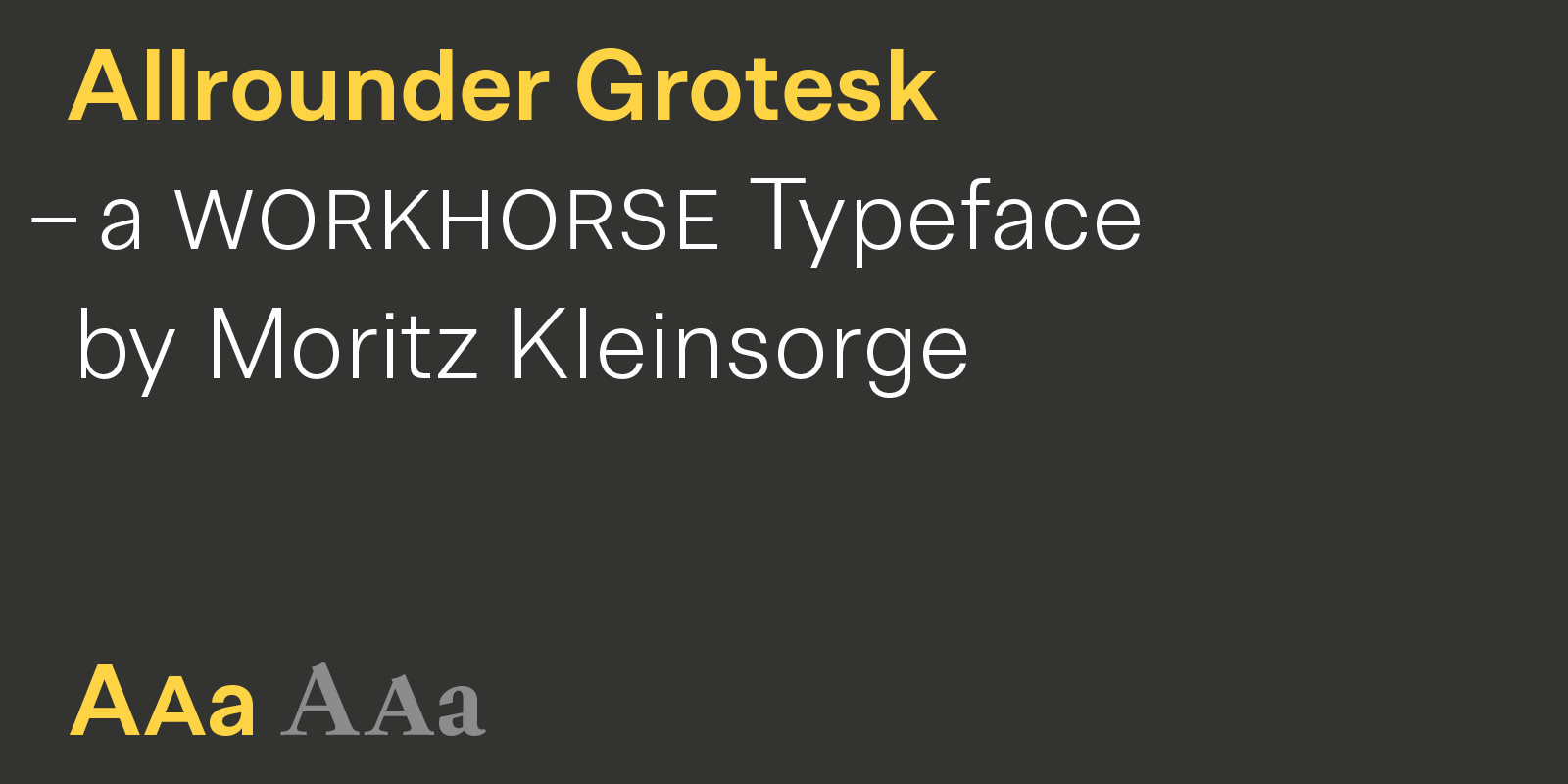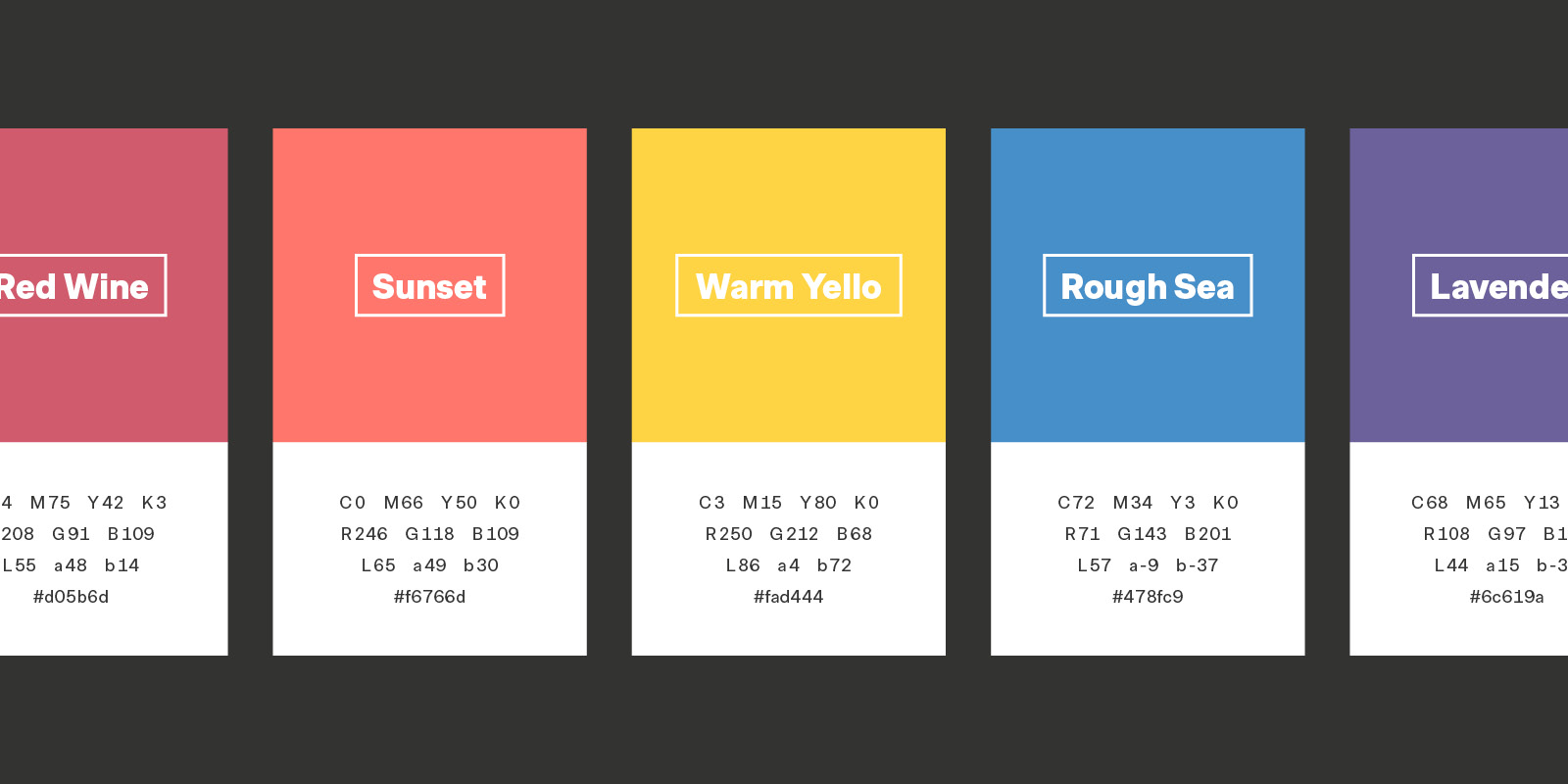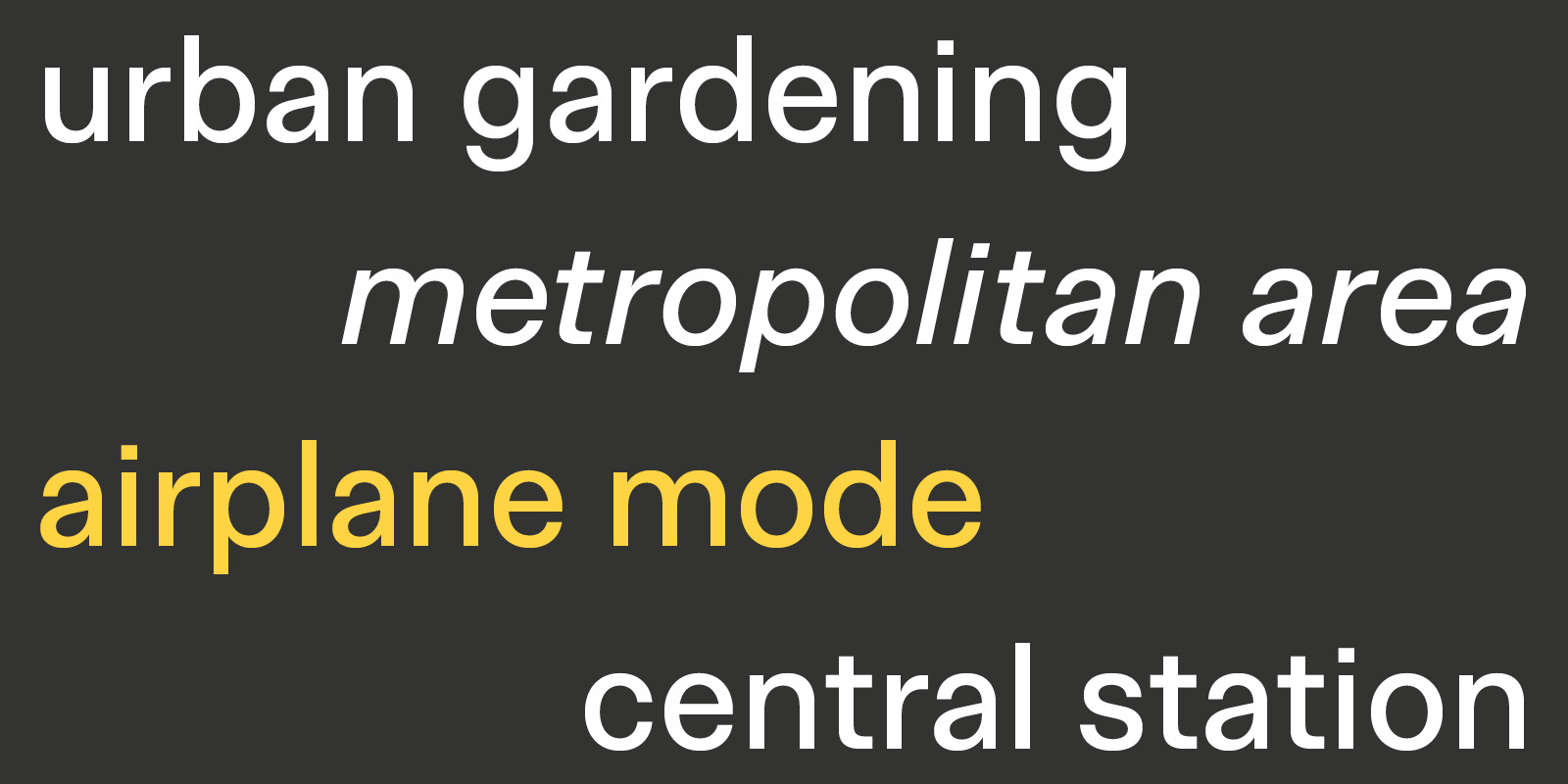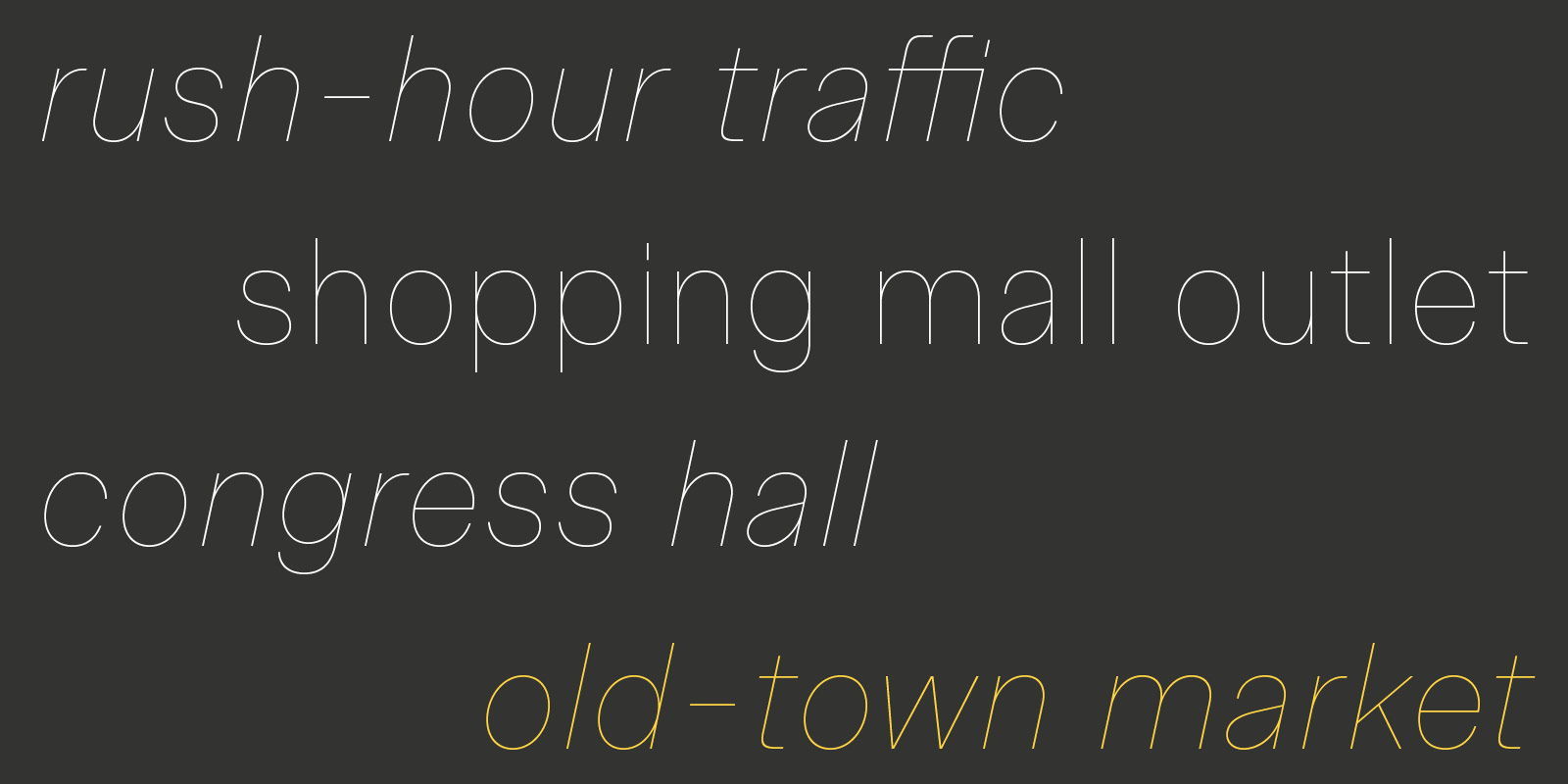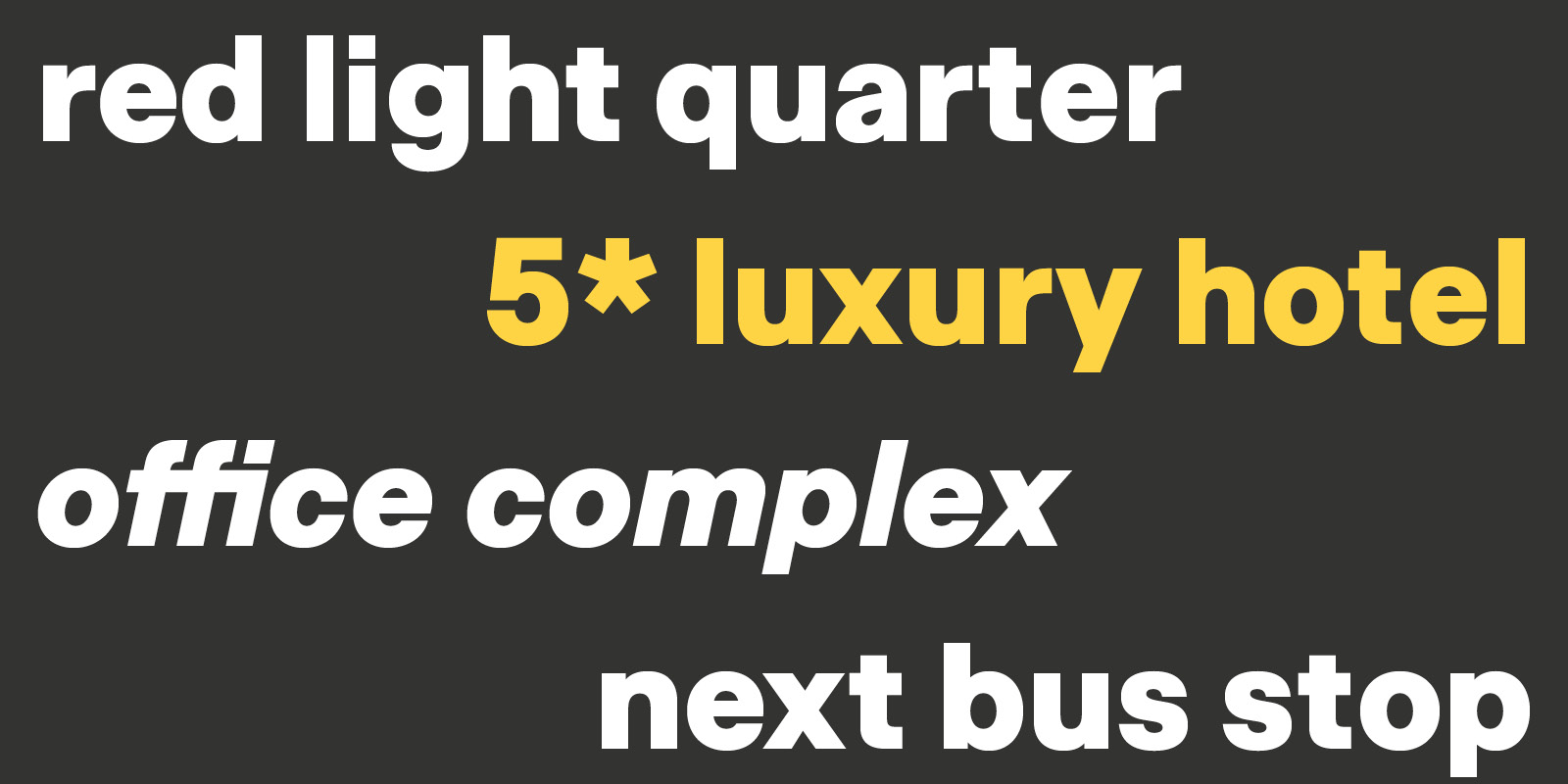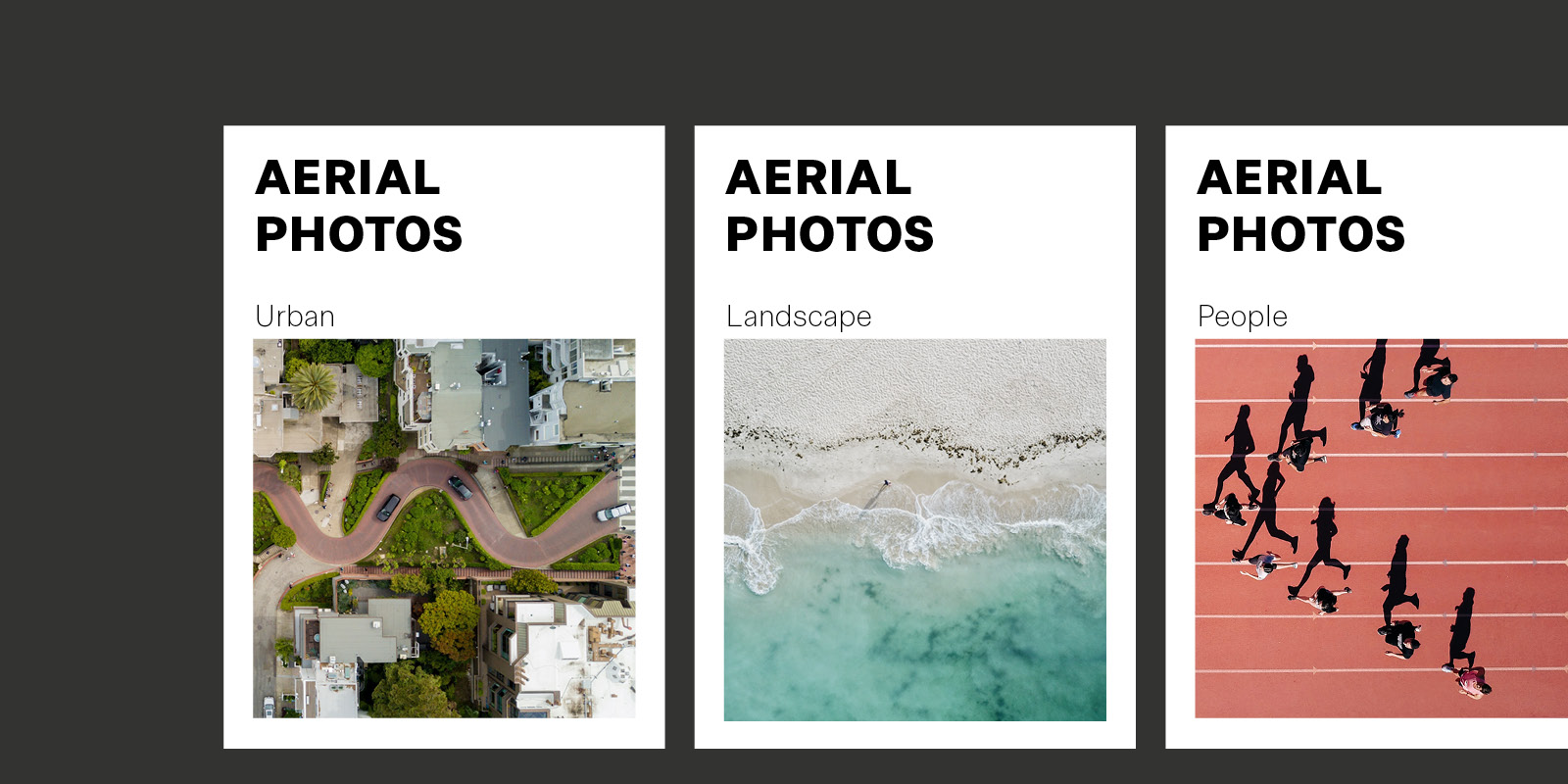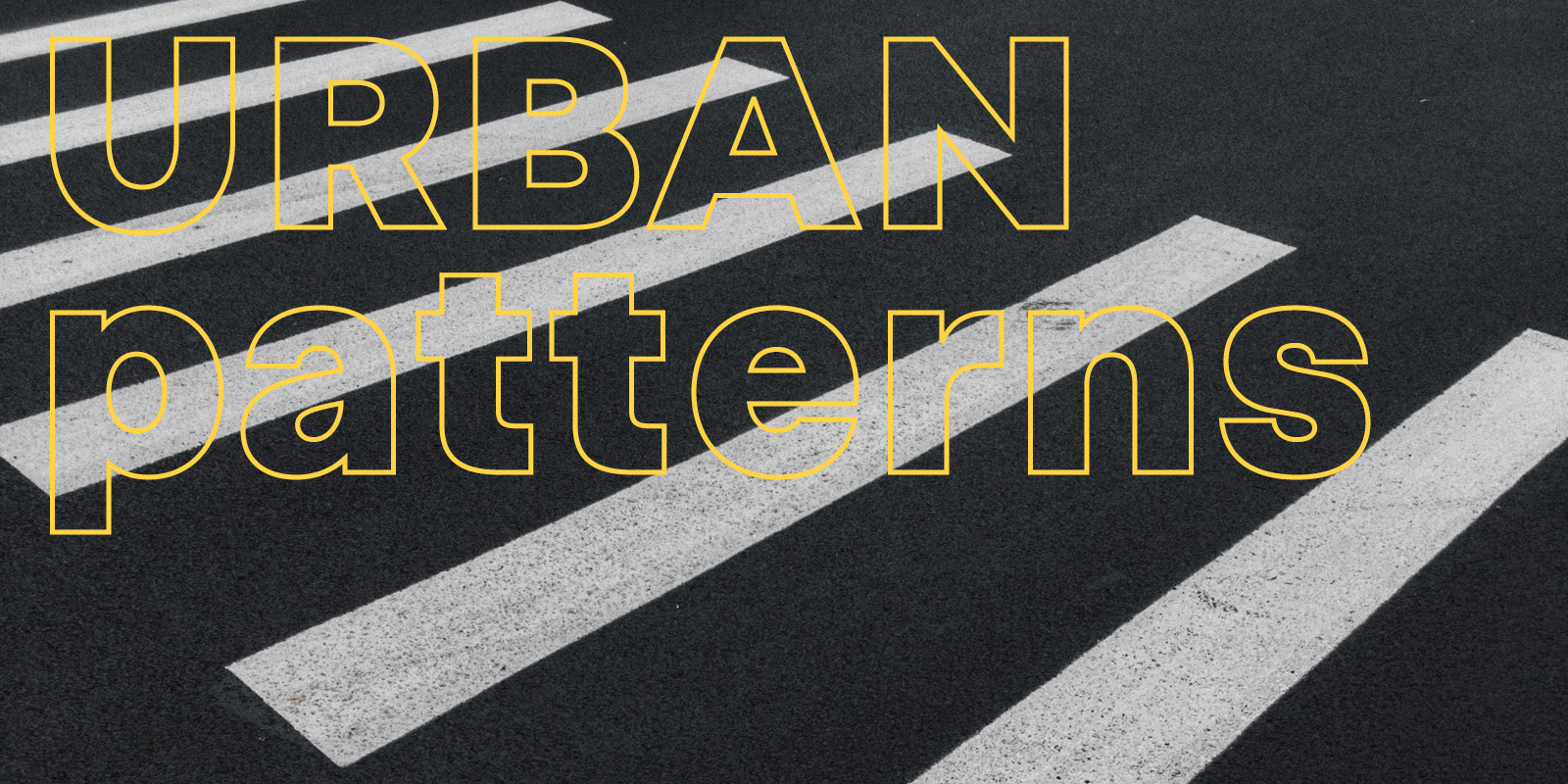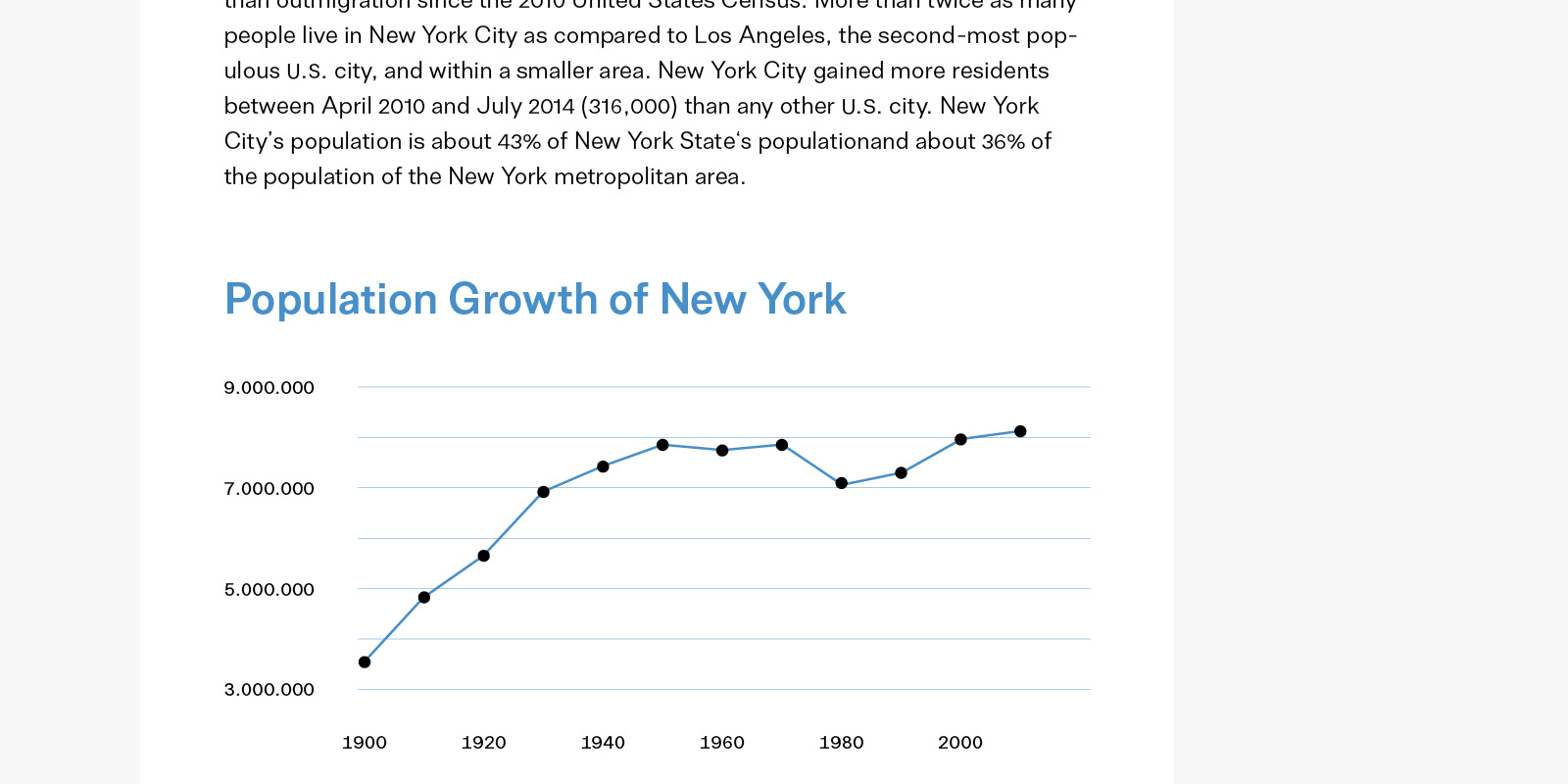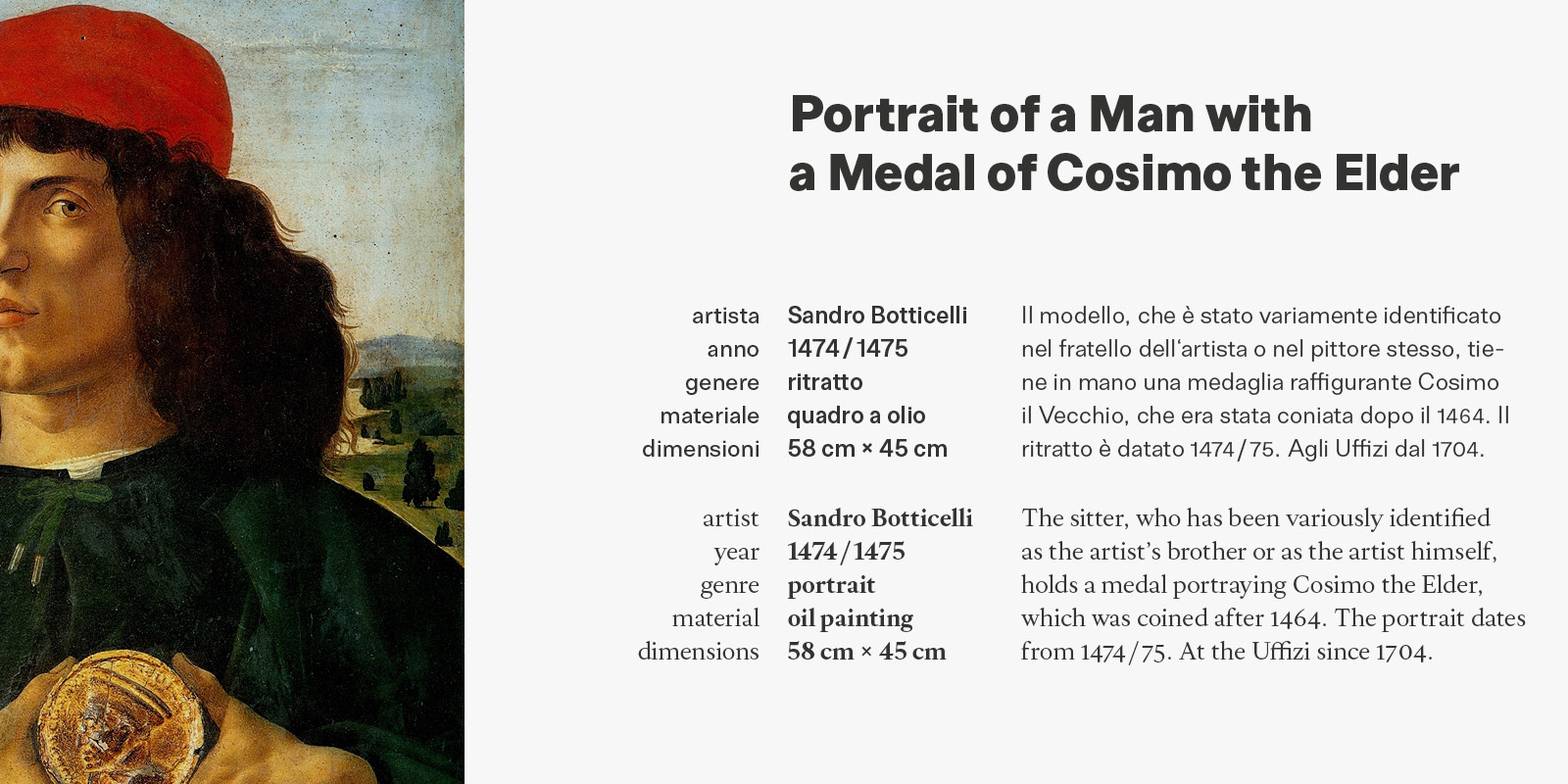
Allrounder Grotesk — The workhorse Grotesk
Allrounder Grotesk
Allrounder Grotesk is a neutral, powerful neo-grotesk member of the Allrounder superfamily. An unobtrusive teamplayer as well as an excellent soloist, this workhorse is ready for any task you’ll throw it at: great for body text; crisp and clean in display sizes. It consists of ten weights with 900+ glyphs each and carefully hand-corrected obliques.